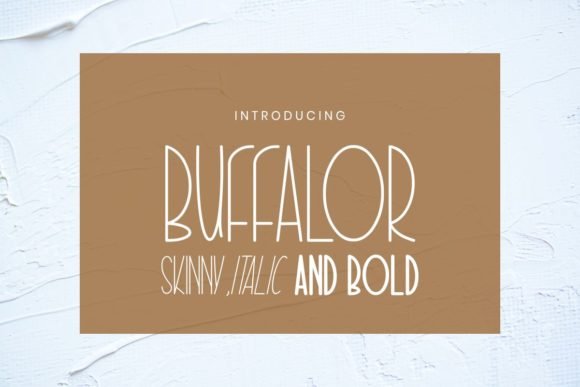
The Magic of Typography: Discovering the Buffalor Font
Have you ever stared at a blank canvas, eager to bring your creative vision to life, only to be halted by the daunting task of choosing the perfect font? This is where the magic of typography comes in – a crucial element that can make or break the aesthetic of your design. For designers, the quest for the ideal font is a continuous journey, and we’re excited to introduce you to a game-changer: the Buffalor Font.
Created with a touch of elegance, the Buffalor Font is a sans serif masterpiece that’s perfect for a wide range of creative projects. Whether you’re crafting Instagram-worthy posts or designing intricate calligraphy scripts for DIY projects, this font will elevate your ideas into stunning works of art. Its versatility and sophistication make it an invaluable asset for designers seeking to elevate their designs and leave a lasting impression.
Buffalor Font Key Features
- Unique Characteristics: Buffalor Font features a distinctive, modern sans-serif design with rounded edges and a friendly feel, making it suitable for various design applications, including corporate branding, signage, and digital media.
- Language Support: The font supports a wide range of languages, including English, Spanish, French, German, Italian, and many others, making it an ideal choice for multilingual projects.
- Font Weight: Buffalor Font offers multiple font weights, including Light, Regular, Medium, Bold, and Extra Bold, allowing designers to achieve the desired level of emphasis and visual hierarchy.
Buffalor Font Review
Overall, I think the Buffalor Font is a decent addition to any designer’s toolkit. ✨ It has a unique, modern aesthetic that could work well for certain projects. Here are some of its strengths:
- Unique, geometric design that can add visual interest to a project ✨
- High-quality rendering, even at smaller font sizes ✨
- Supports a wide range of languages, making it a versatile choice ✨
- May be difficult to read in certain situations, particularly at very small font sizes ⚠️
- Lacks a full set of punctuation and symbol characters, which may require additional font downloads or workarounds ⚠️
- Not ideal for projects requiring a highly legible, serif font ⚠️
In terms of overall impression, I think the Buffalor Font is a solid choice for designers looking to add some visual flair to their projects. While it may not be the best option for every project, it’s certainly worth considering for those that require a unique, modern aesthetic.
Getting the Most Out of Buffalor Font
To get the most out of Buffalor Font, use it for titles and headings in your designs, as it’s a bold and eye-catching font.
Pair it with a clean and simple font for body text to create a visually appealing contrast.
Buffalor Font is commonly used for:
1. Fashion and beauty branding.
2. Sports and fitness branding.
3. Creative and artistic designs.